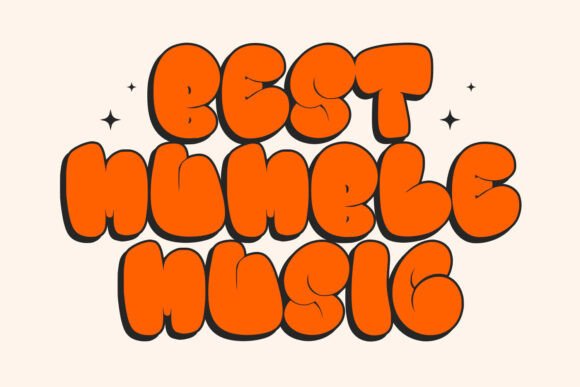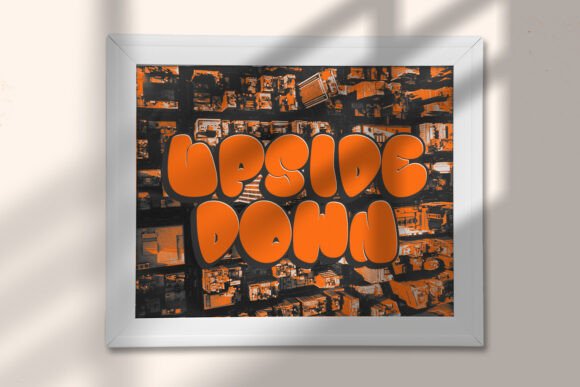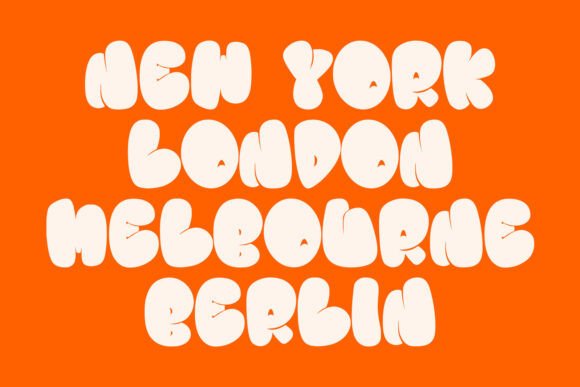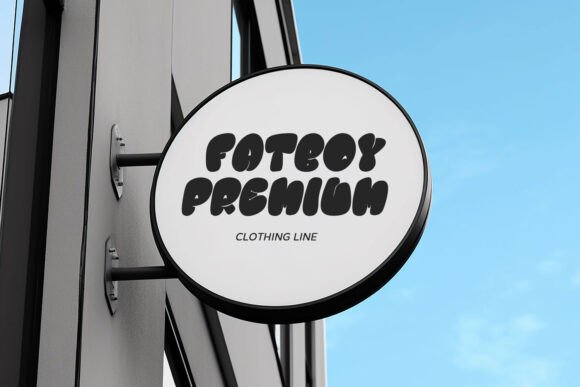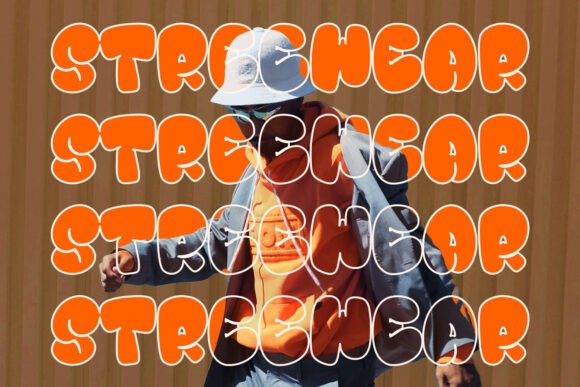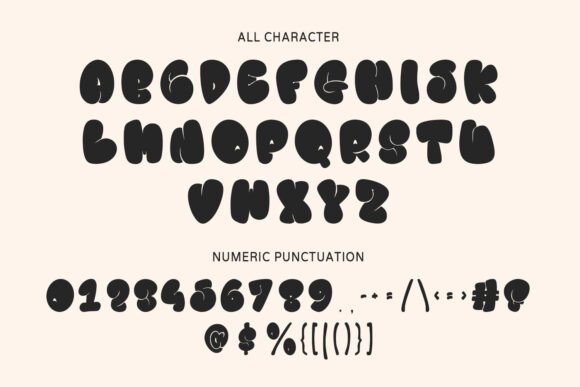
Introduction to Drop Drips Font
Drop Drips is a bubbly, whimsical display font with rounded, liquid-like characters that ooze personality.
Ideal for playful branding, fun packaging, and social media graphics, this font adds a soft yet bold touch to your creative projects Its fluid shapes make it a standout in any youthful, trendy design.
Key Features of Drop Drips Font